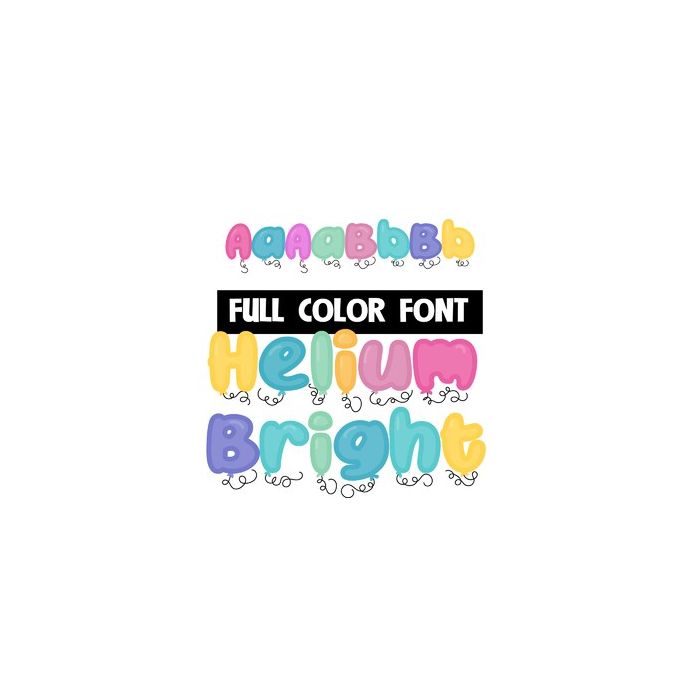
This full-color font features brightly colored balloons with stubby, curly strings. There is an alt case available through your system or Silhouette Studio with secondary colors.